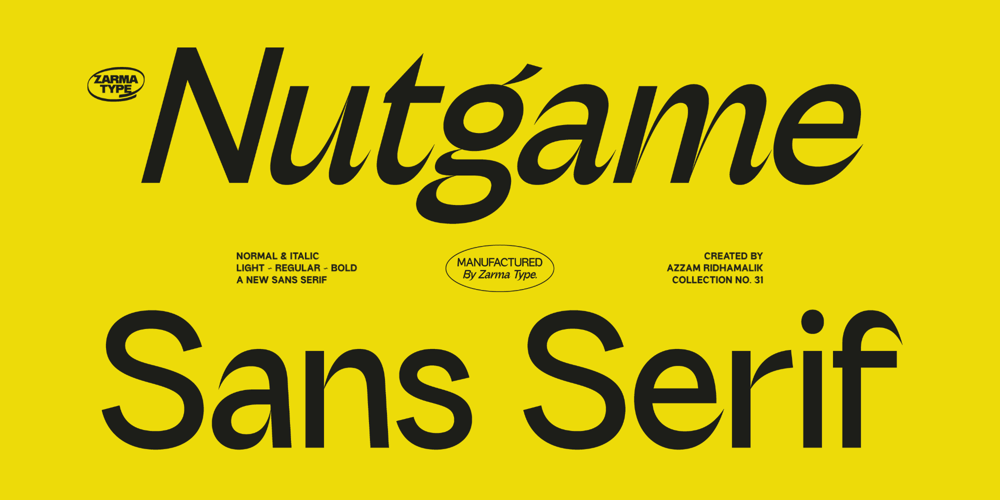
Nutgame Sans Font Font Family was designed by Azzam Ridhamalik and published by Azzam Ridhamalik. Nutgame Sans Font contains 5 styles and family package options. Introducing Nutgame, a versatile Sans Serif font designed to elevate your designs. With two styles, normal and italic, each offering three font weights (light, regular, and bold). This font provides a wide range of possibilities for your projects. Embodying a modern appeal with a touch of 70s retro flair, Nutgame exudes a captivating and nostalgic vibe that is perfect for adding a unique and memorable twist to your creative works. Whether used for branding, headlines, or editorial designs.